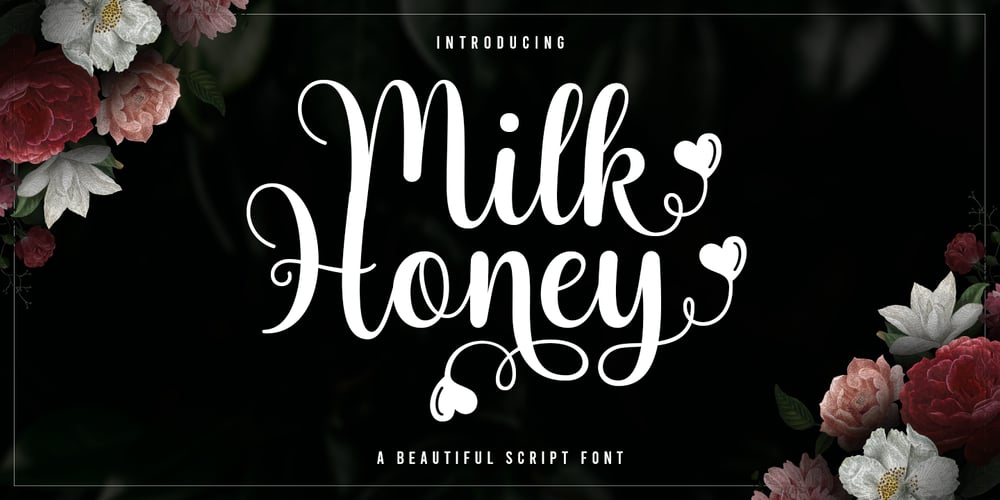
Milk Honey Script Font Family was designed by Mur Zani and published by Zane Studio. Milk Honey Script contains 1 styles and family package options. Milk Honey Script is a modern, organic, dynamic and energetic font. It can be used for various purposes. such as titles, signatures, logos, correspondence, wedding invitations, letterheads, nameplates, labels, newsletters, posters, badges, etc. Files include:To enable the OpenType Stylistic alternative, you need a program that supports OpenType features such as Adobe Illustrator CS, Adobe Indesign & CorelDraw X7, Microsoft Word 2010 or a later version. How to access all alternate characters, using Windows Character Map with Photoshop:Milk Honey Script is encoded with Unicode PUA, which allows full access to all additional characters without special design software. Mac users can use Font Book , and Windows users can use the Character Map to view and copy any of the extra characters to paste into your favorite text editor/app.Thanks so much for viewing, and let me know if you have any questions..!